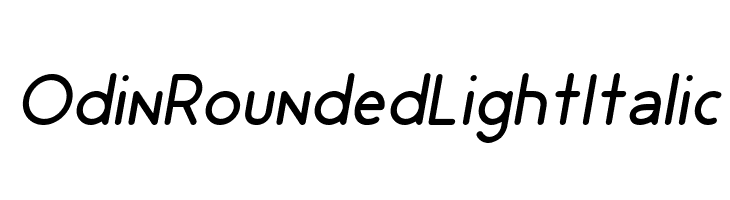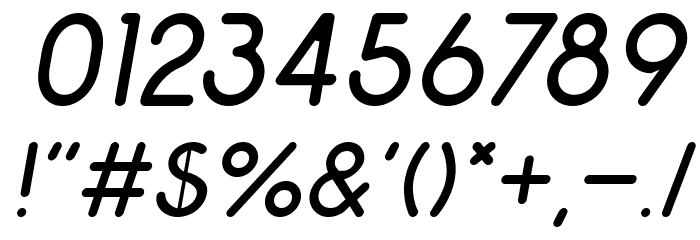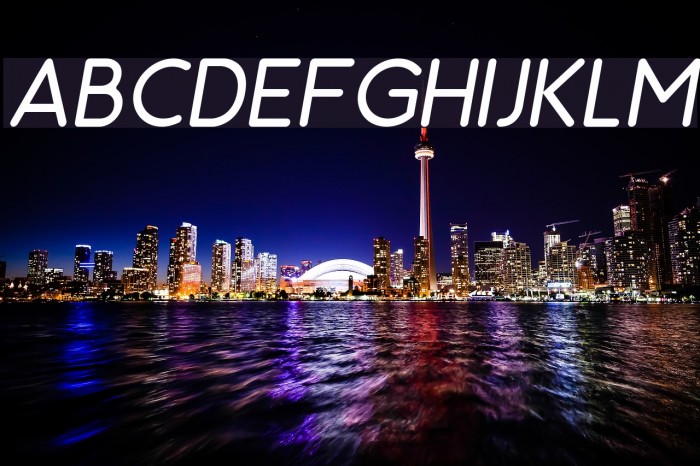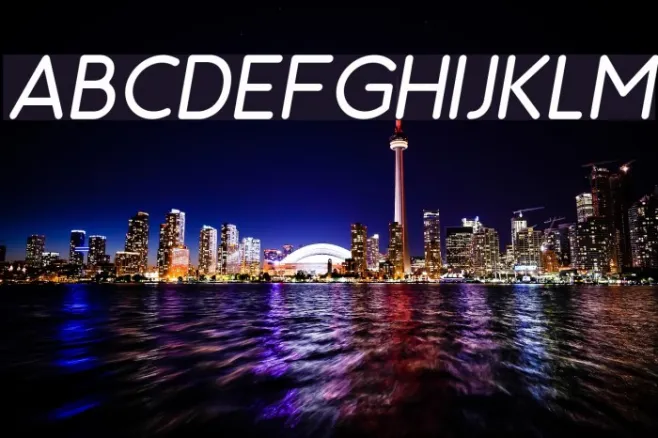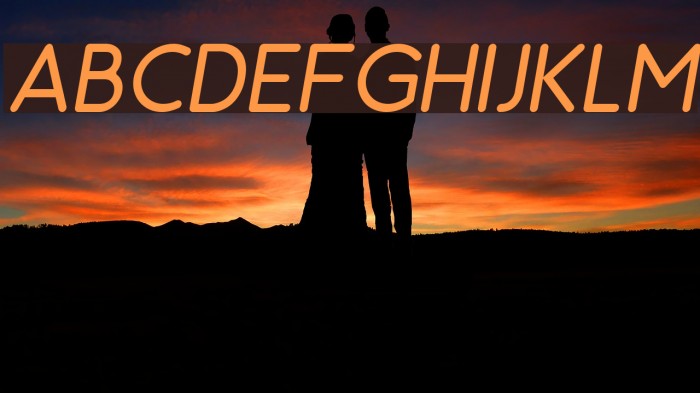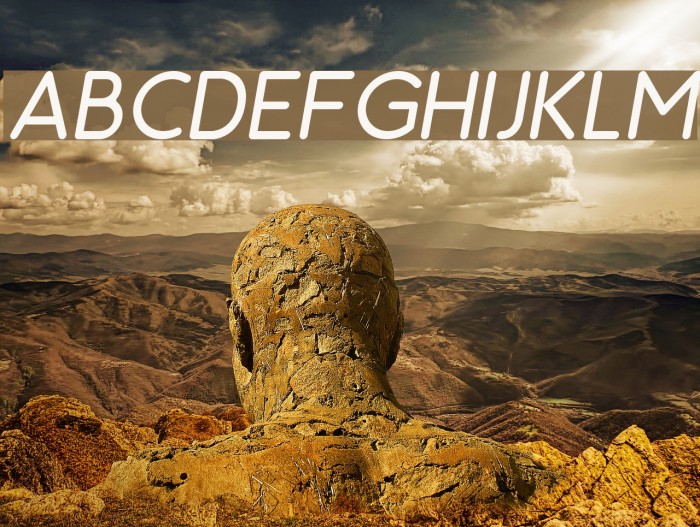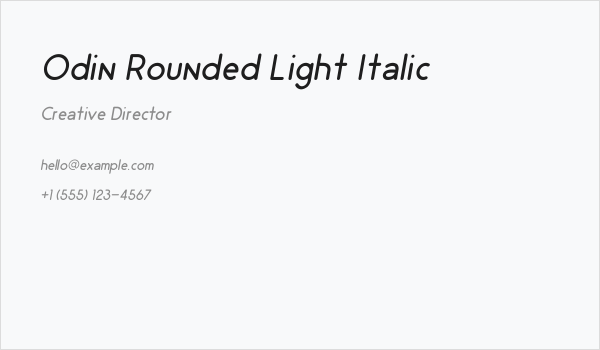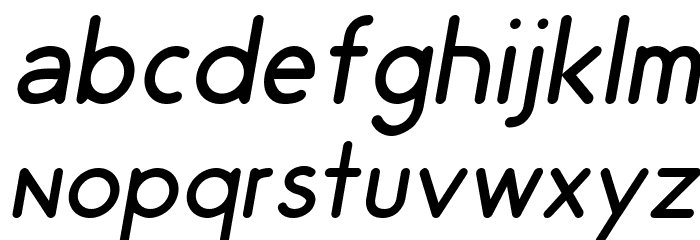
Odin Rounded Light Italic Font
Odin Rounded Light Italic Description
This typeface features a clean, modern aesthetic with rounded edges that give it a friendly and approachable feel. The characters are slightly italicized, adding a sense of motion and dynamism. The light weight of the font contributes to its airy and open appearance, making it suitable for a variety of design contexts. The spacing between characters is balanced, ensuring readability while maintaining a sleek look. Its rounded forms and smooth curves make it ideal for projects that require a contemporary and informal touch.
| Proposed Projects | Ideal for branding, web design, and user interfaces where a modern and approachable look is desired. |